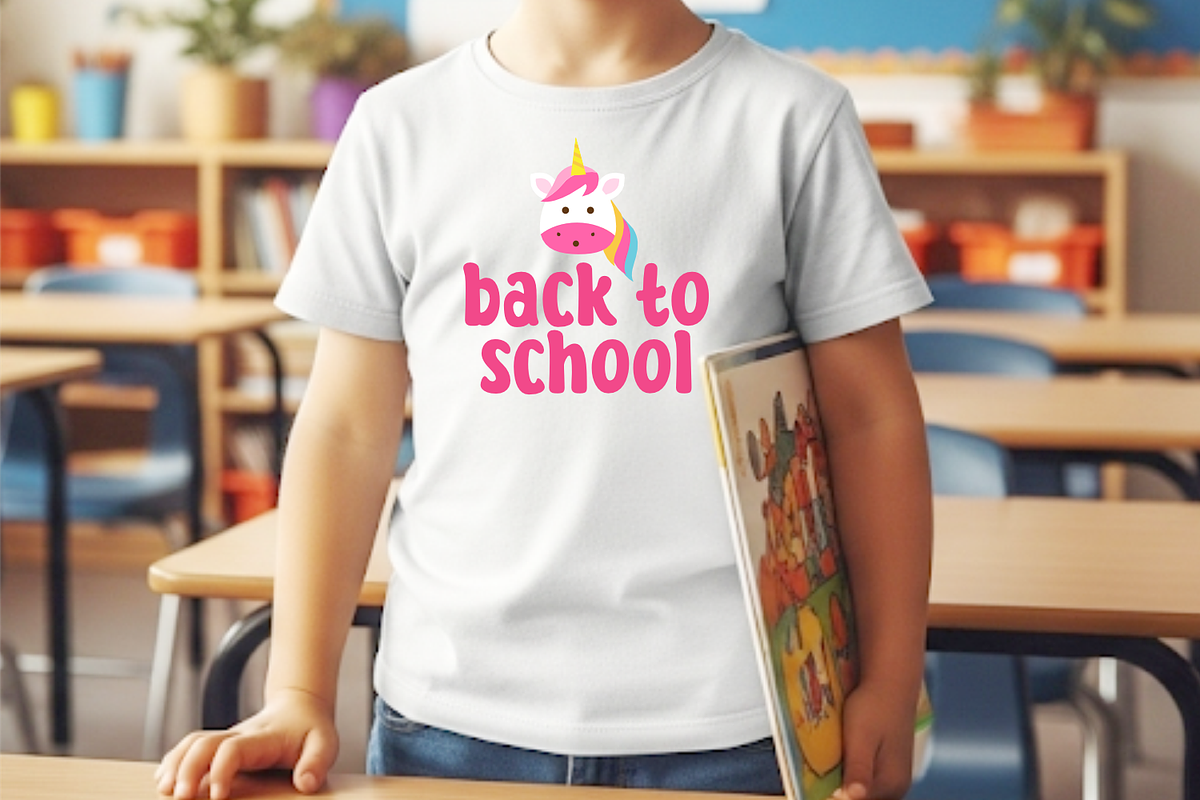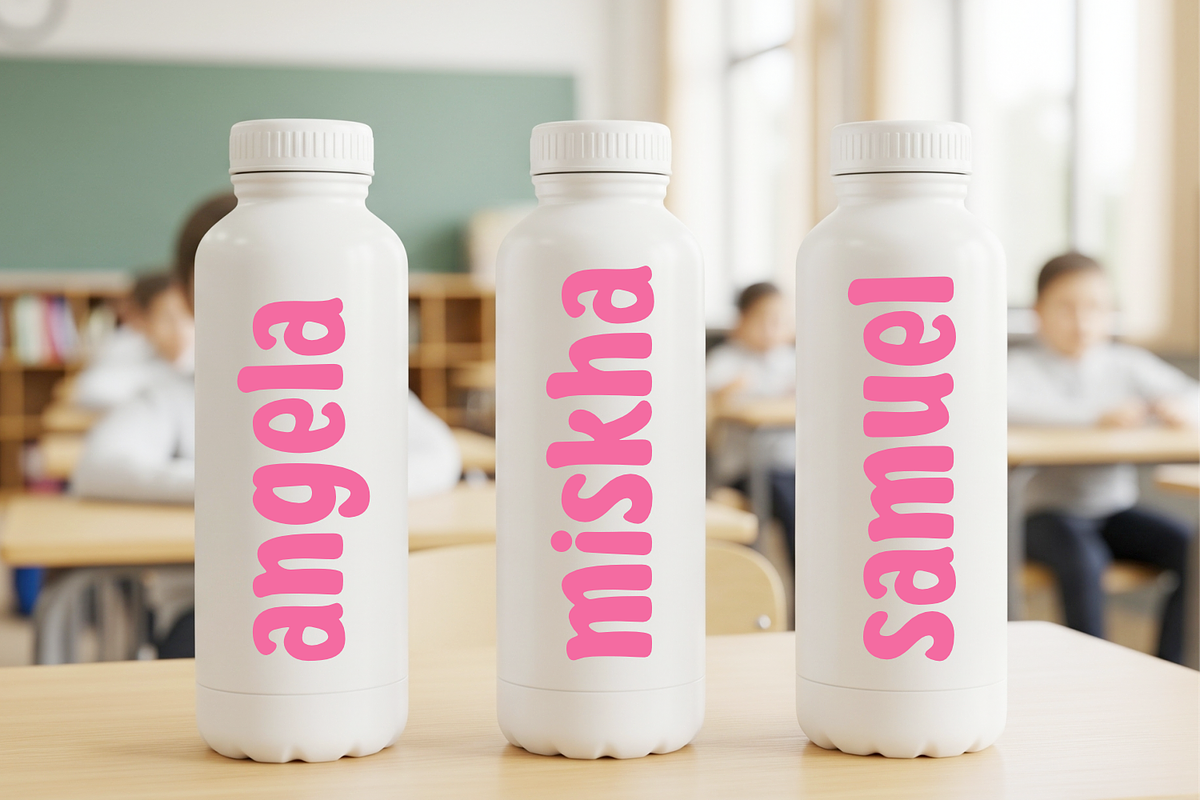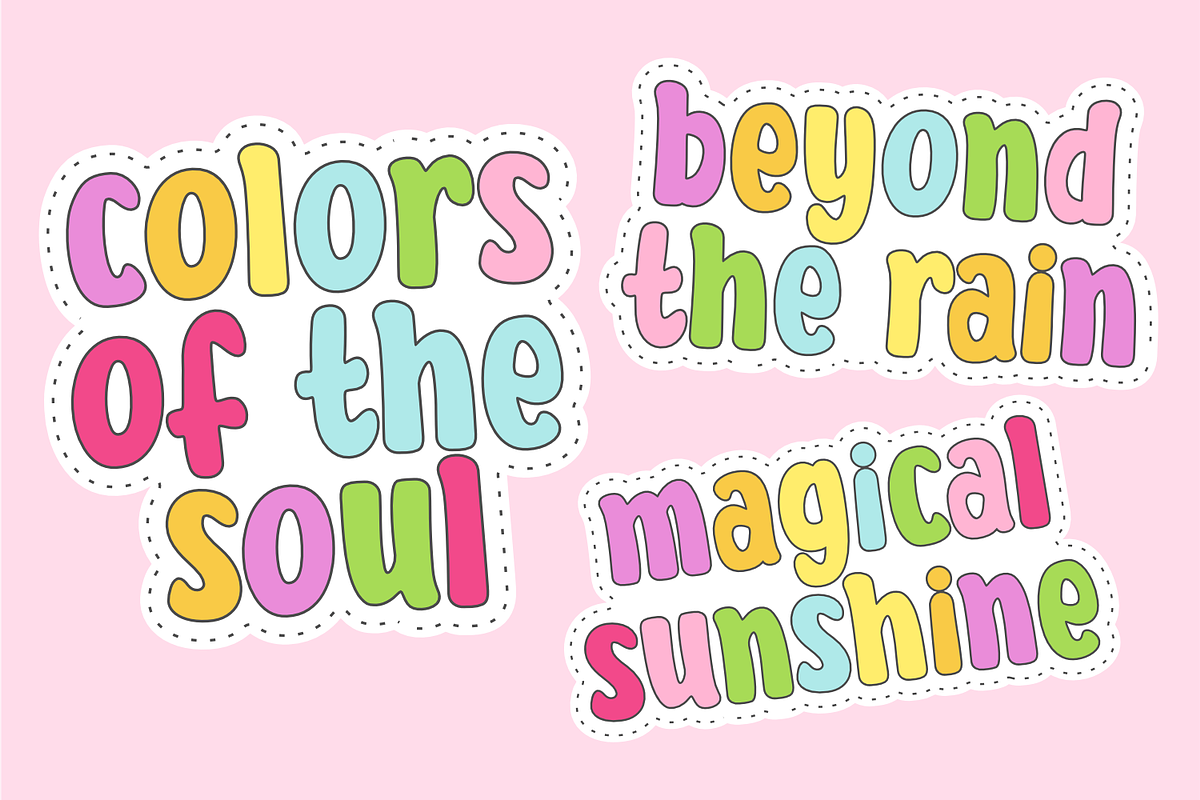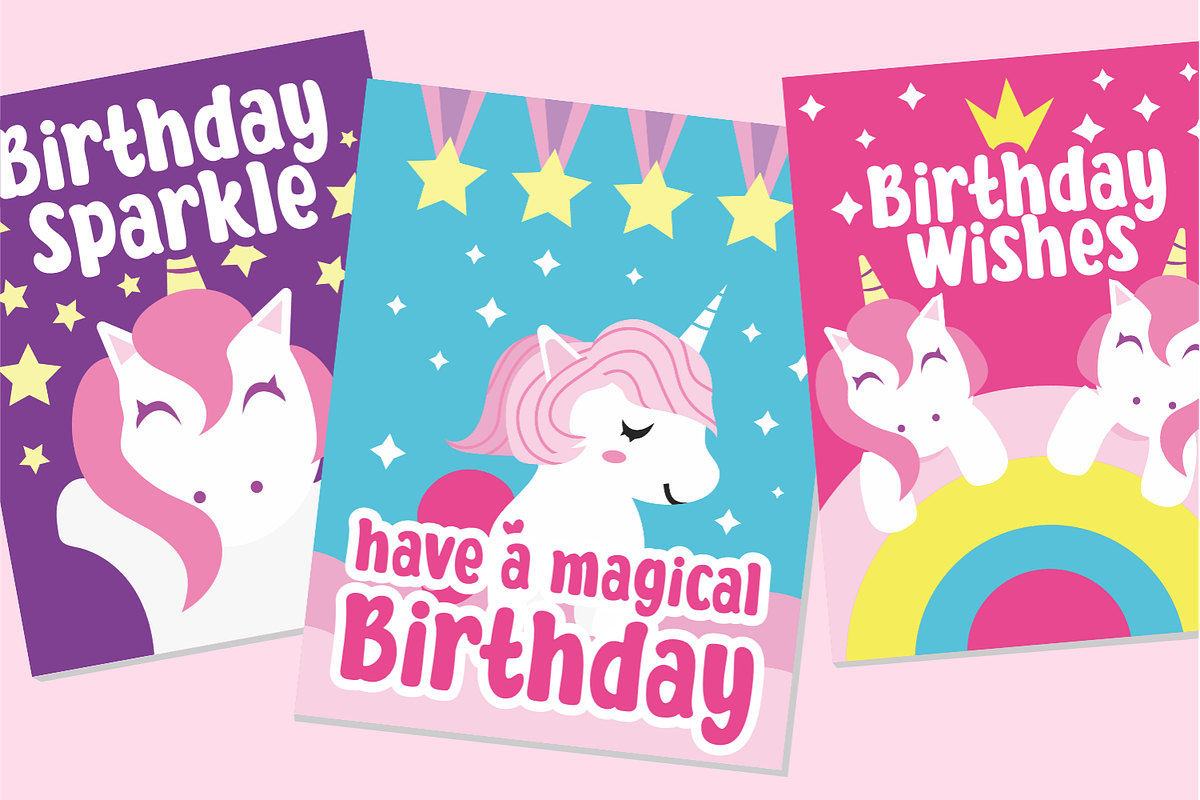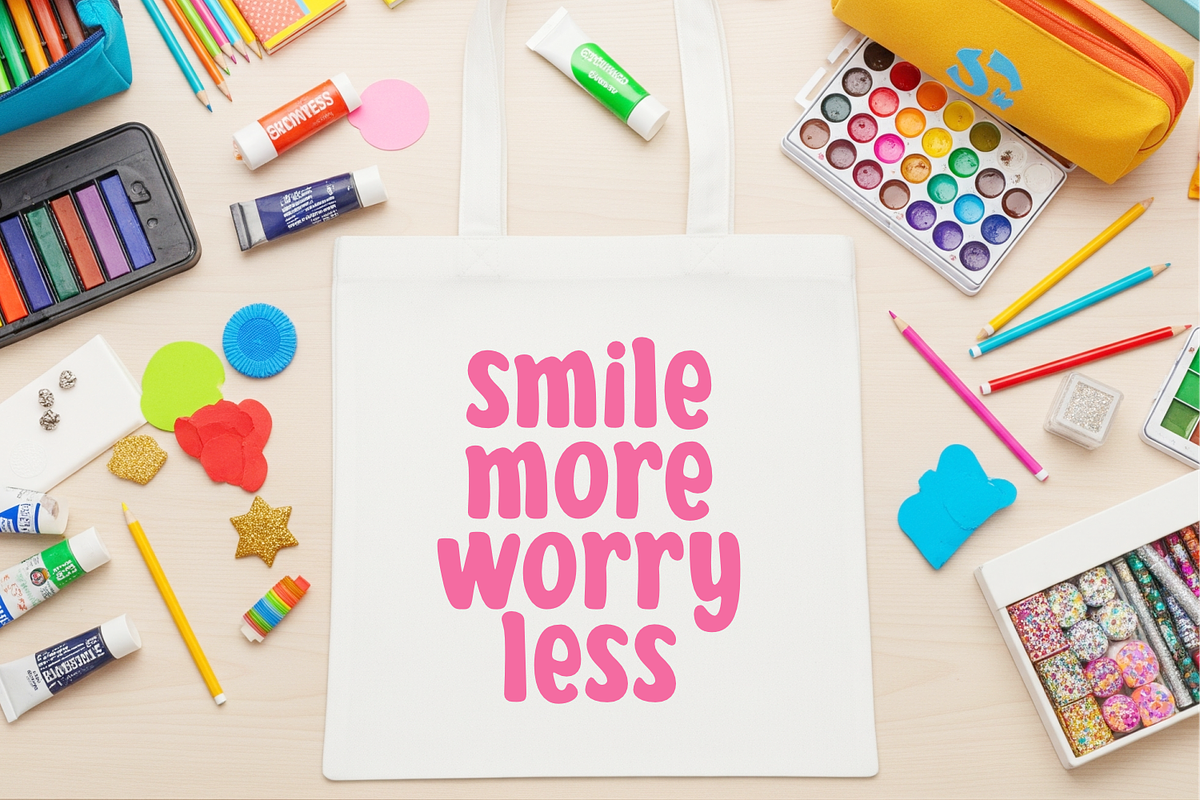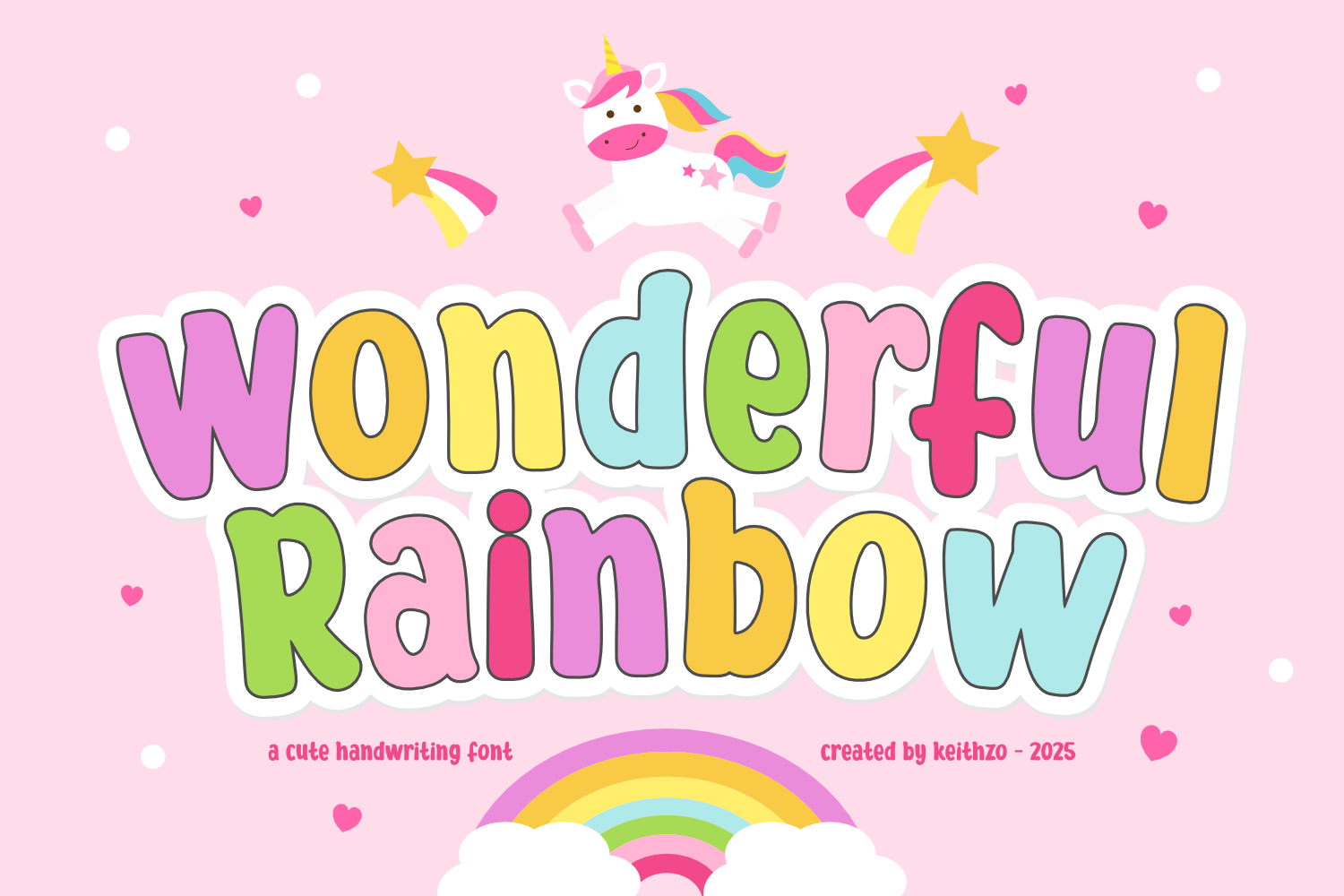
Wonderful Rainbow - Cute Kids Font
Say hello to Wonderful Rainbow, the handwritten font that’s as adorable as its name suggests! This isn’t just any font; it’s a delightful burst of cuteness, crafted to bring a smile to every project.
Wonderful Rainbow is wonderfully cute, chunky, and irresistibly chubby, making it stand out with its playful personality. Each character is lovingly handwritten, giving your designs an authentic, personal touch that digital fonts often lack. Its soft, rounded edges and joyful appearance are designed to capture hearts and spread happiness.